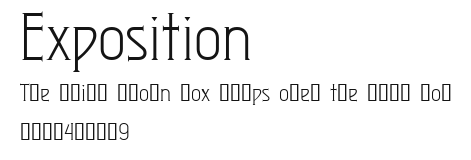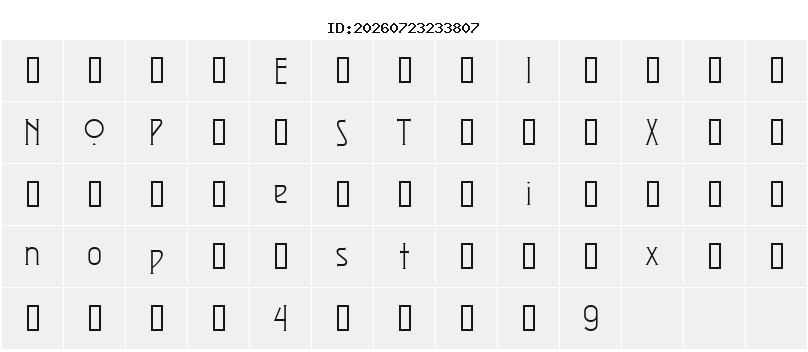
• Font Name: Exposition
• Font Style: Sampler
• Font ID: Altsys Fontographer 4.0.3 Exposition Sampler
• Full Font Name: Exposition Sampler
• Version: Altsys Fontographer 4.0.3 03.06.1994
• PostScript Name: ExpositionSampler
• Character Count: 24
About Exposition.ttf
Exposition.ttf is a modern, elegant sans-serif font designed for ultimate readability and visual harmony. Perfect for branding, headlines, web design, and print materials.